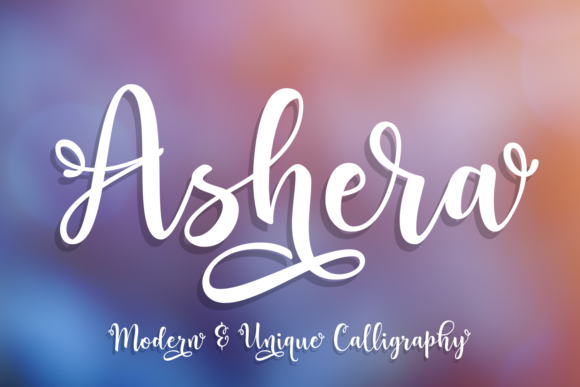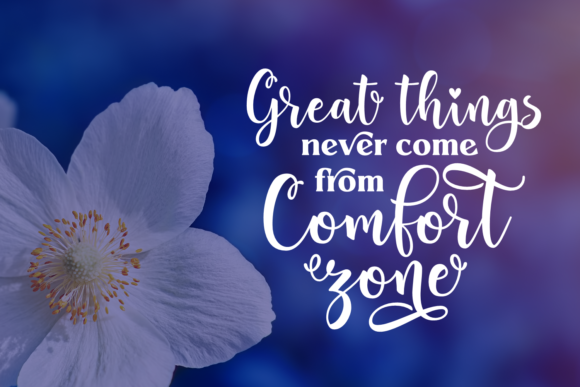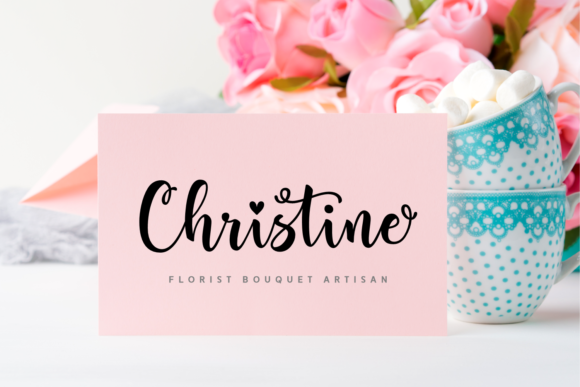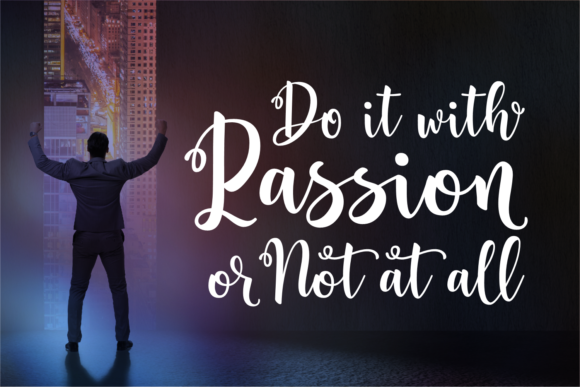
Ashera Font
About Ashera Font
Ashera emerges as a modern and distinctive calligraphy font, graced with a touch of romance that sets it apart. Featuring beautiful calligraphic characters adorned with elegant swashes, this font becomes a captivating addition to your design library. Its versatility makes it an excellent choice for a wide array of creative projects, from book covers and headlines to prints, websites, magazines, album covers, quote designs, posters, wedding cards, and beyond.
The font’s contemporary design is complemented by a romantic flair, making it an ideal choice for projects that require both a modern and emotionally resonant touch. Ashera’s calligraphic characters exude elegance, and the carefully crafted swashes add a sense of sophistication to your designs. This unique combination allows the font to seamlessly adapt to various design contexts, enhancing the visual appeal of your creative endeavors.
Incorporate Ashera into your projects to breathe life into book covers, where it can convey a sense of allure and intrigue. Let it command attention in headlines, where its modern yet romantic aesthetic captures the viewer’s gaze. Prints and websites benefit from the font’s distinctive charm, while magazines and album covers can use Ashera to create a visually captivating and memorable impression.
For quote designs, posters, and wedding cards, Ashera’s romantic touch adds a personalized and emotional dimension to your messages. The font’s versatility shines through as it effortlessly complements diverse design needs, making it a valuable asset for designers seeking a modern calligraphy font with a unique and romantic character.
In conclusion, Ashera is not just a font; it’s a design element that infuses your projects with a modern and romantic aesthetic. Elevate your creations, from digital to print, by incorporating Ashera into your design toolkit. Let its calligraphic charm and elegant swashes transform your work into a visually captivating masterpiece across a spectrum of creative endeavors.